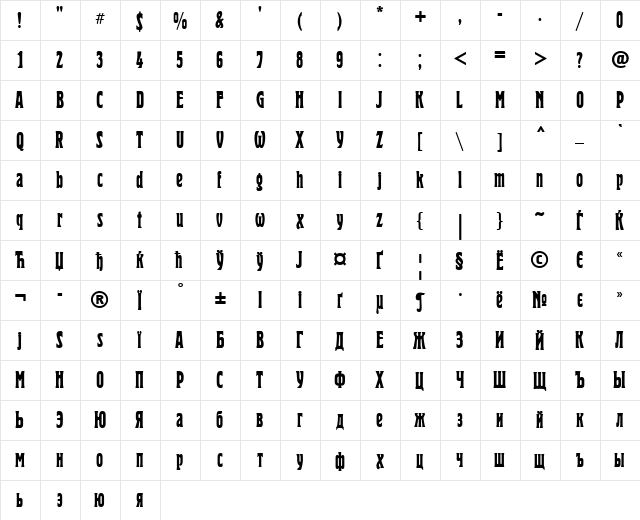
HeroldCondC Regular
Design Context for HeroldCondC Typeface
HeroldCondC offers clean, dependable letterforms without strong stylistic allegiance, making it a practical choice for designers who need flexibility. Its narrow stance lets it pack a punch even in space-constrained designs.